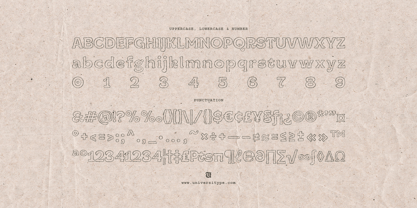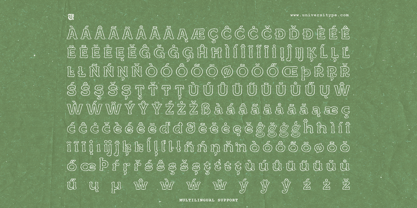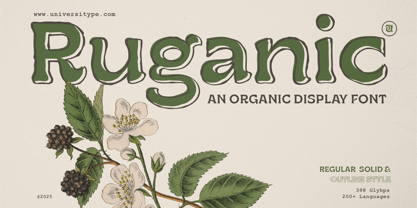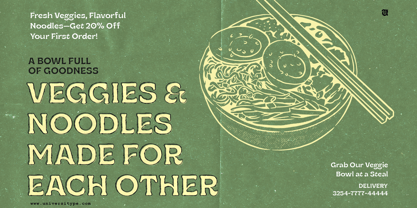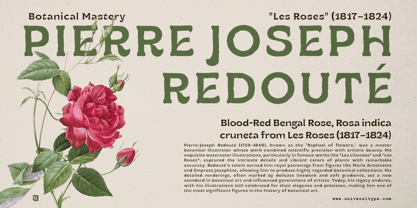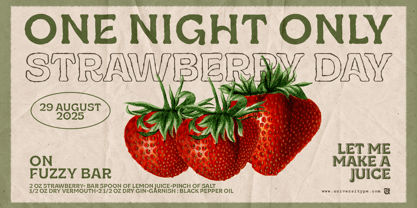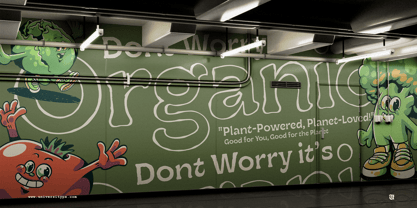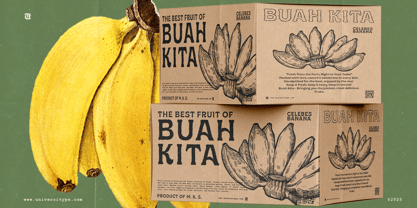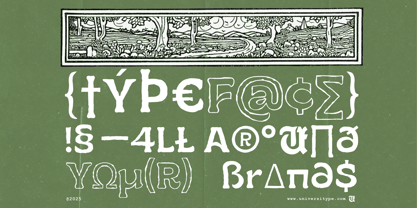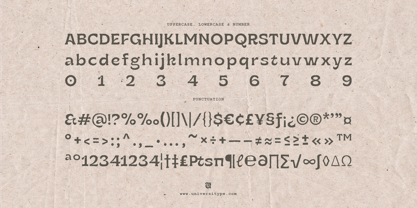
UT Ruganic
by Universitype
The UT Ruganic Font Family was designed by Muh. Aswar, Novan Arisandi and published by Universitype. UT Ruganic contains 2 styles and family package options. More about this family
The UT Ruganic font family is a versatile and distinctive typeface collection that brings an organic, handcrafted aesthetic to any design project. With its unique blend of rustic charm and modern readability, it’s perfect for creating eye-catching visuals that resonate with themes of nature, sustainability, and artisanal quality.
Key Features:
• Complete character set with extended multilingual support
• Multiple font weights and styles for design flexibility
• Decorative elements and alternates for creative expression
• OpenType features for advanced typography
• Professional kerning and spacing for optimal readability
Inspiration Behind UT Ruganic Design:
The UT Ruganic font draws inspiration from vintage botanical illustrations and hand-lettered signage found in historical natural product packaging. The designers sought to capture the essence of organic forms and translate them into a functional typeface that evokes authenticity and craftsmanship.
Usage Suggestions:
• Brand identity for natural/organic products
• Packaging design for food, cosmetics, and wellness products
• Editorial headlines and feature titles
• Environmental graphics and signage
• Digital content creation for social media and websites
• Language Support: 200+ languages including Western European, Central European, Eastern European, and many others
• Character Set: 398 glyphs including uppercase, lowercase, numbers, punctuation, ligatures, and decorative elements
Designers: Muh. Aswar, Novan Arisandi
Foundry: Universitype